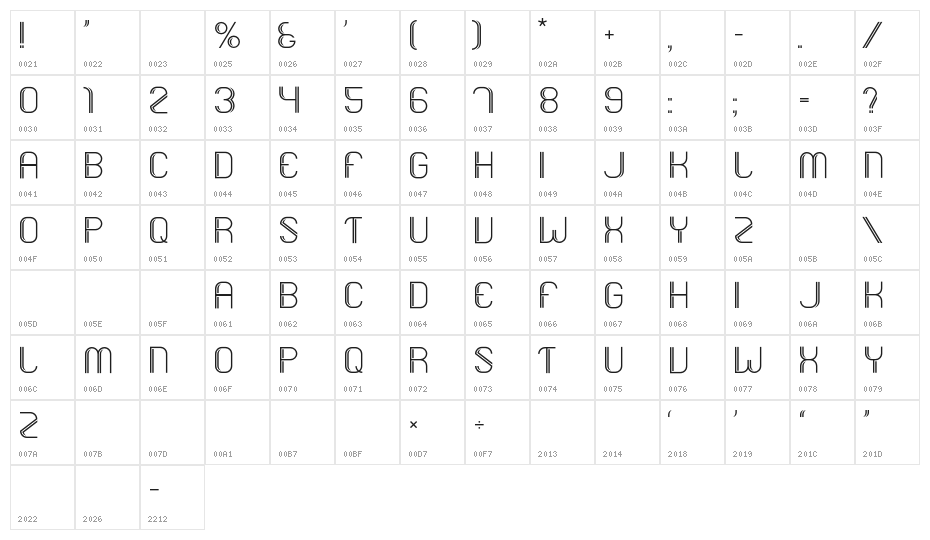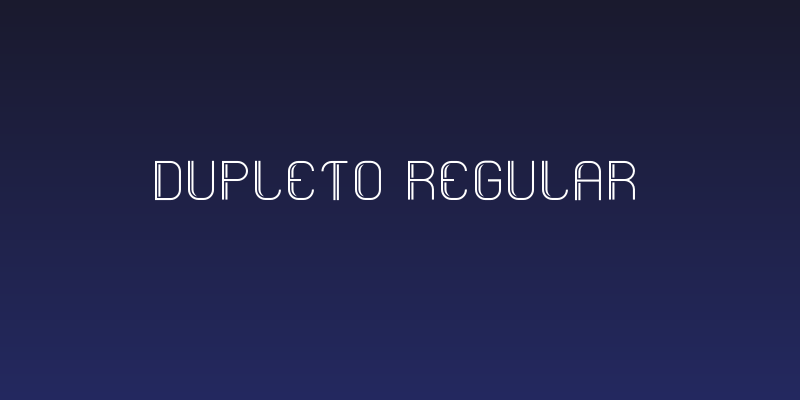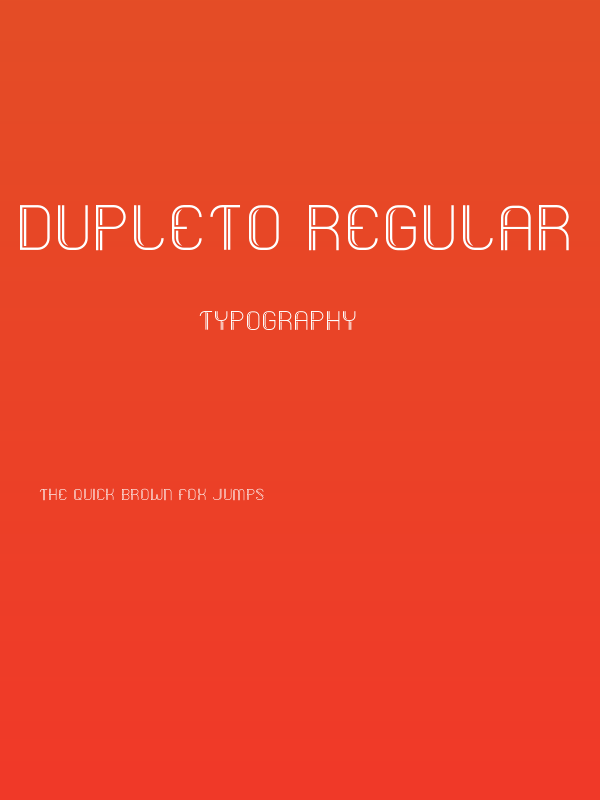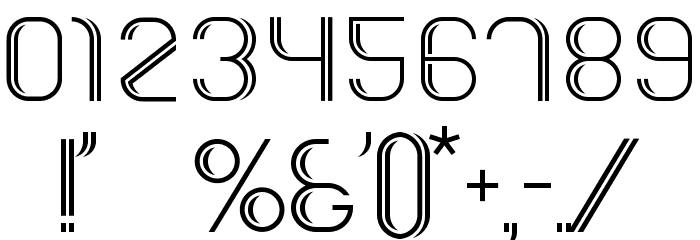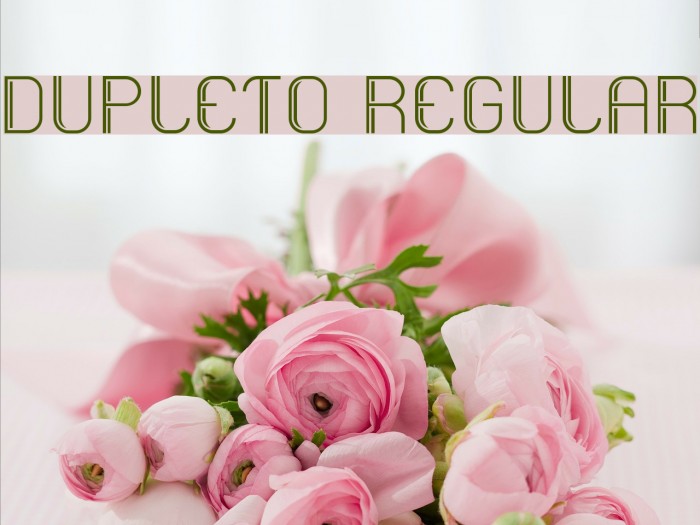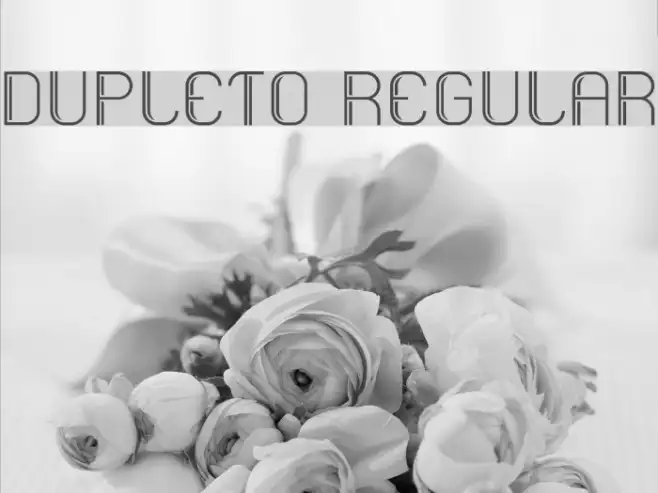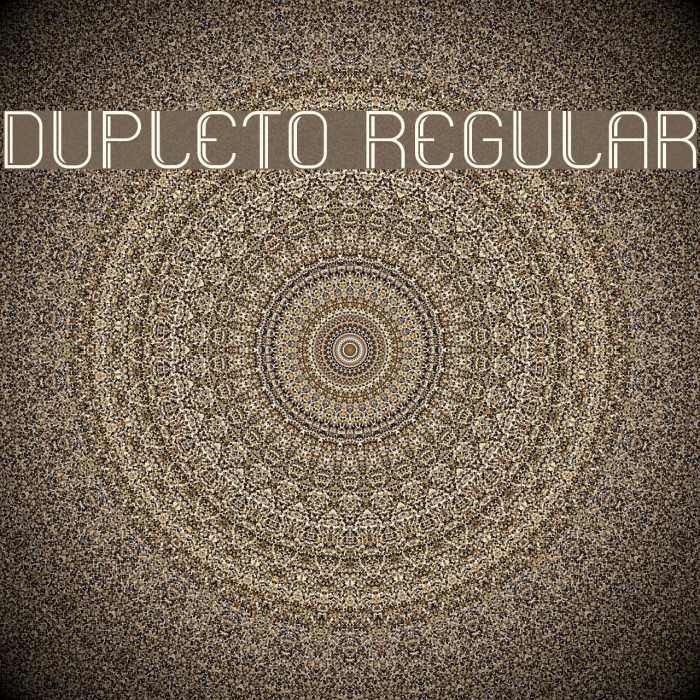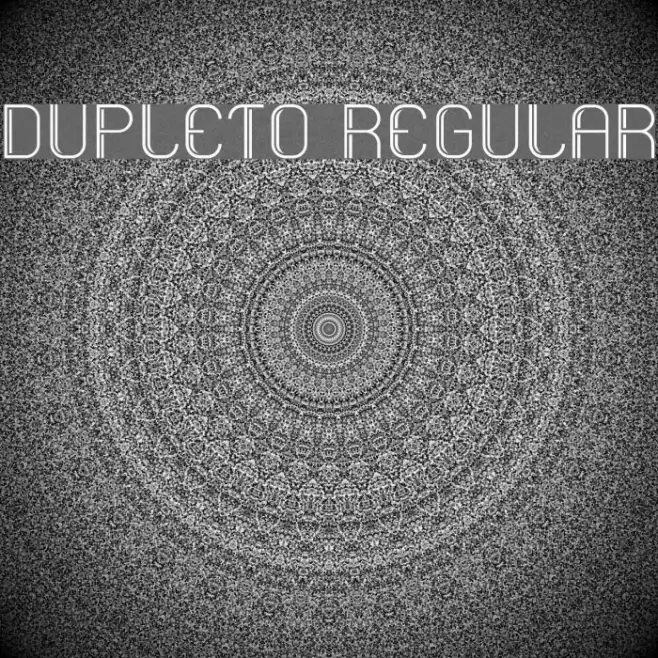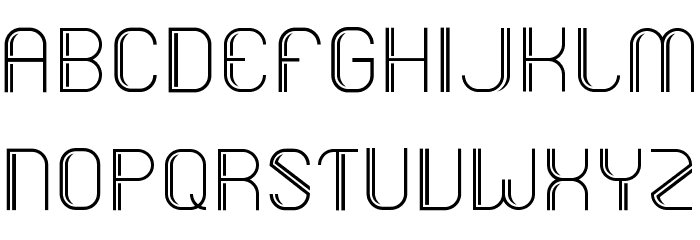
Dupleto Regular Font
Dupleto Regular Description
This font features a unique and modern design with a geometric and linear aesthetic. The characters are composed of parallel lines that create a sense of depth and dimension, giving it a futuristic and sophisticated look. The uppercase and lowercase letters maintain a consistent style, with clean and sharp edges that enhance readability. The numerals and special characters follow the same design principles, ensuring a cohesive appearance across all elements. This font is ideal for projects that require a contemporary and stylish touch.
| Proposed Projects | Ideal for branding, advertising, and editorial design projects that seek a modern and stylish aesthetic. |